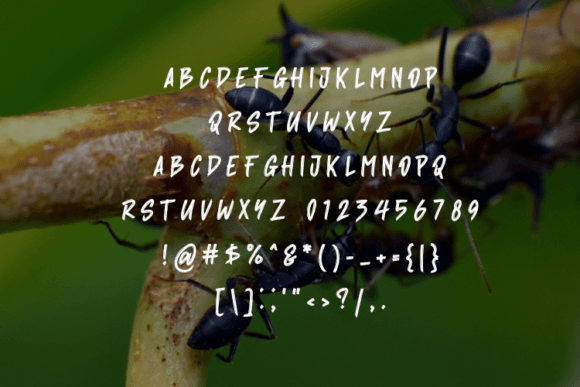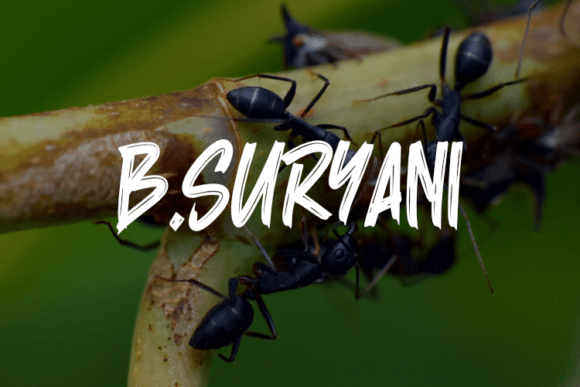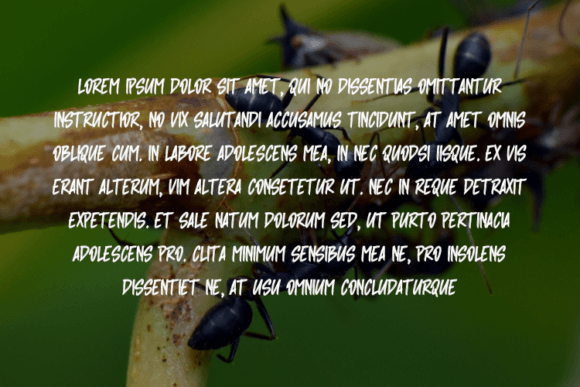
Introduction to Gufron Font
Embrace the chic sophistication of Gufron, the versatile typeface tailored expressly for modern fashion design.
Whether itโs apparel or accessories, Gufron lends itself seamlessly to myriad styles, effortlessly enhancing each product it graces Its compatibility with all design software makes it a go-to resource for all creators, rendering it an indispensable asset in the realm of design.
Key Features of Gufron Font